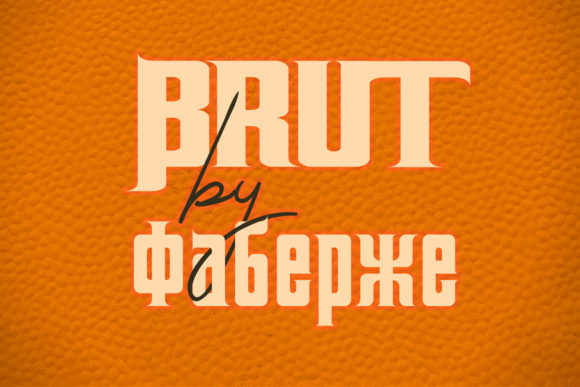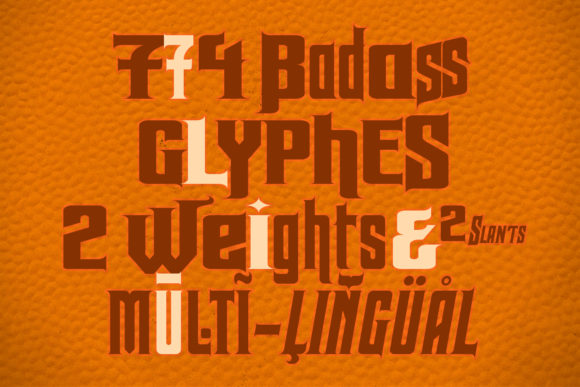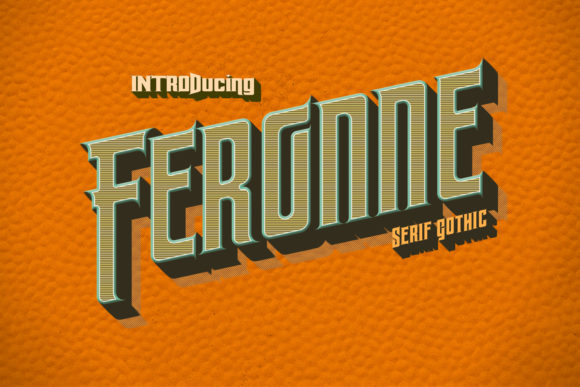
Feronne Family Font: Elevate Your Designs with a Retro-Modern Twist
In the world of typography, font choices can make or break a design. For designers and crafters looking to add a unique touch to their projects, the Feronne Family Font is an exciting discovery. This blackletter typeface boasts a retro and modern look, drawing inspiration from the stylish seventies. With its distinctive character, Feronne is set to make any design stand out from the crowd.
The Retro-Modern Appeal of Feronne
The Feronne Family Font is a masterful blend of old and new, combining the classic elements of blackletter typography with a modern twist. Its retro appeal is reminiscent of the seventies, an era known for its bold fashion and graphic design. The font’s sleek lines, intricate details, and dramatic flair evoke a sense of nostalgia while still feeling fresh and contemporary.
Key Features of Feronne Family Font
- Blackletter Typeface: Feronne’s roots in traditional blackletter typography give it a unique and recognizable appearance.
- Retro-Modern Style: The font’s design combines vintage flair with a modern aesthetic, making it versatile for various design applications.
- Seventies Inspiration: The font’s style is directly influenced by the graphic design trends of the seventies, adding a nostalgic touch to any project.
- High Versatility: Feronne can be used across a range of design projects, from branding and advertising to digital media and crafting.
Using Feronne Family Font in Your Designs
The Feronne Family Font is incredibly versatile, making it suitable for a wide array of design projects. Here are some ideas on how to incorporate Feronne into your work:
Branding and Logo Design
Create a memorable brand identity with Feronne. Its unique style can help your logo stand out and convey a sense of heritage with a modern edge.
Digital Media and Social Graphics
Elevate your social media posts, blog headers, and digital advertisements with Feronne’s distinctive look. The font’s readability and style make it perfect for grabbing attention online.
Crafting and DIY Projects
For crafters and DIY enthusiasts, Feronne can add a professional touch to handmade cards, scrapbooking, and other paper crafts. Its unique style will make your projects stand out.
Tips for Maximizing Feronne’s Impact
- Experiment with Colors: While Feronne looks great in bold black, experimenting with colors can add an extra layer of uniqueness to your designs.
- Mix and Match: Don’t be afraid to combine Feronne with other fonts for a layered look. Its bold style pairs well with simpler fonts.
- Play with Sizes: Use Feronne in various sizes to create visual hierarchy and emphasize key messages in your designs.
The Feronne Family Font is a remarkable addition to any designer’s toolkit. Its blend of retro charm and modern style, inspired by the fashion of the seventies, offers endless possibilities for creative expression. Whether you’re working on a branding project, digital media, or a crafting endeavor, Feronne is sure to add a distinctive touch that sets your work apart.
Discover the potential of Feronne Family Font and let your designs speak with a unique voice that blends the best of the past with the aesthetics of the present.